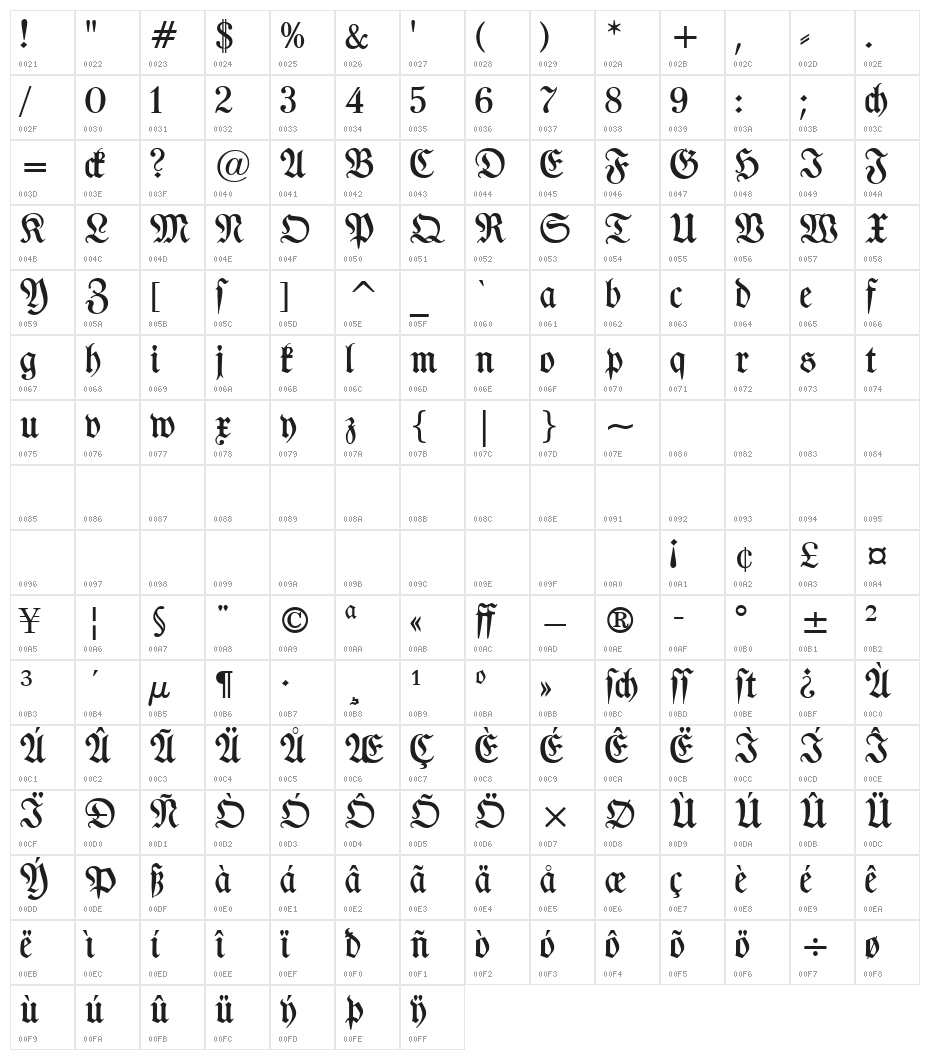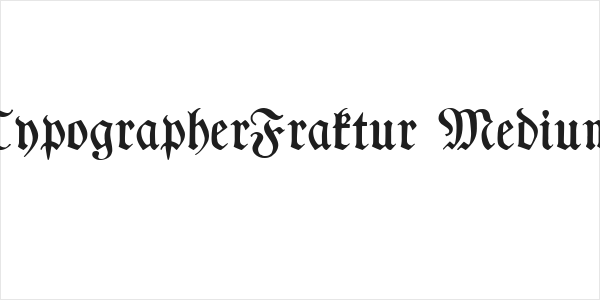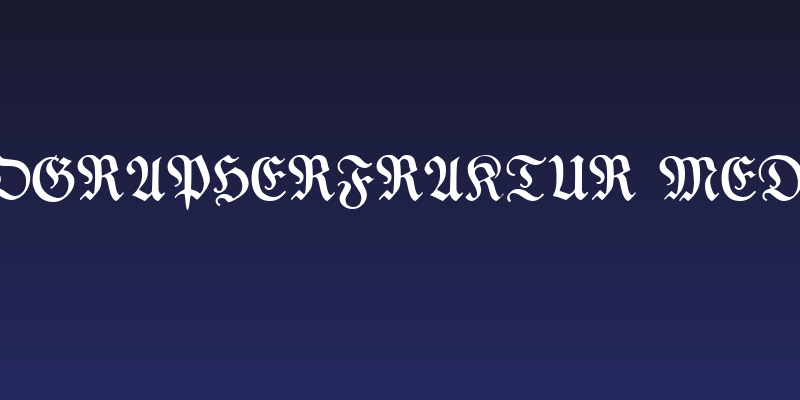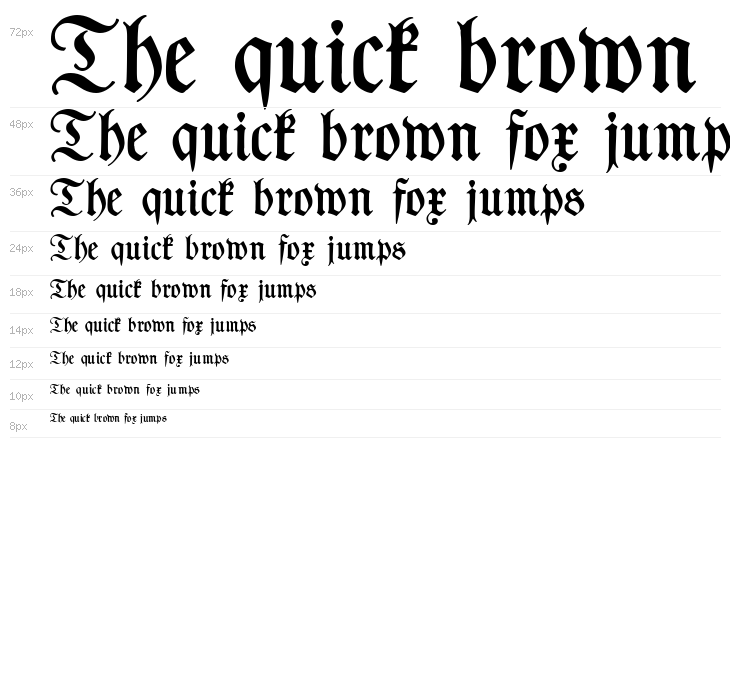
TypographerFraktur Medium Font
TypographerFraktur Medium Description
This font is a classic representation of the Fraktur style, characterized by its intricate and ornate design. The letters exhibit a bold and dramatic flair, with sharp angles and elaborate curves that are typical of the Blackletter tradition. The uppercase letters are particularly striking, with their elaborate flourishes and strong vertical lines. The lowercase letters maintain the same level of detail, ensuring consistency throughout the typeface. The numerals are equally bold, with a distinctive style that complements the overall aesthetic. Special characters are designed with the same attention to detail, making this font suitable for decorative purposes.
Overall StyleVintage
Use CaseHeadlines, Logos, Decorative elements
Proposed ProjectsIdeal for projects requiring a historical or gothic touch, such as book covers, posters, or branding for vintage-themed products.